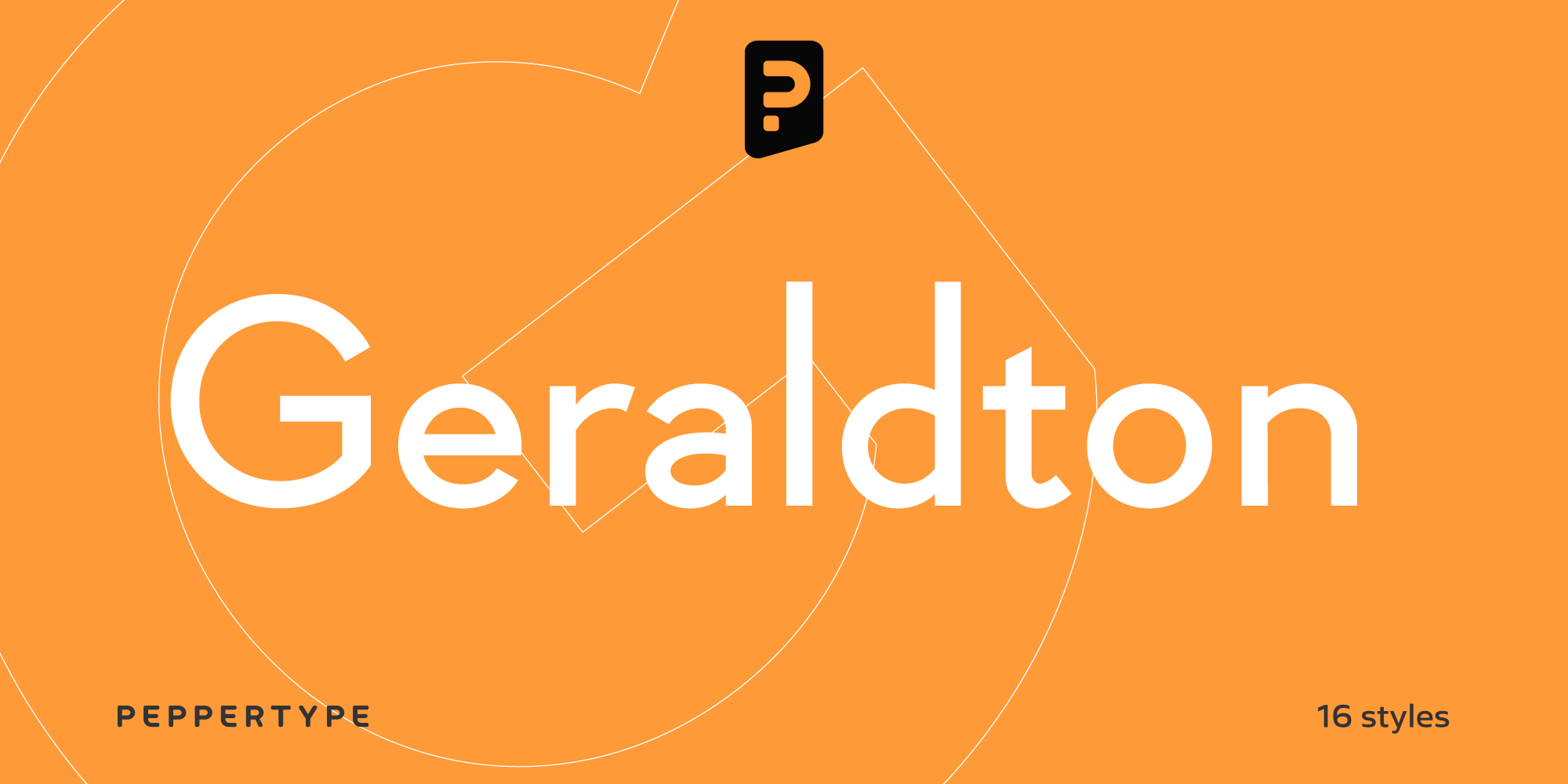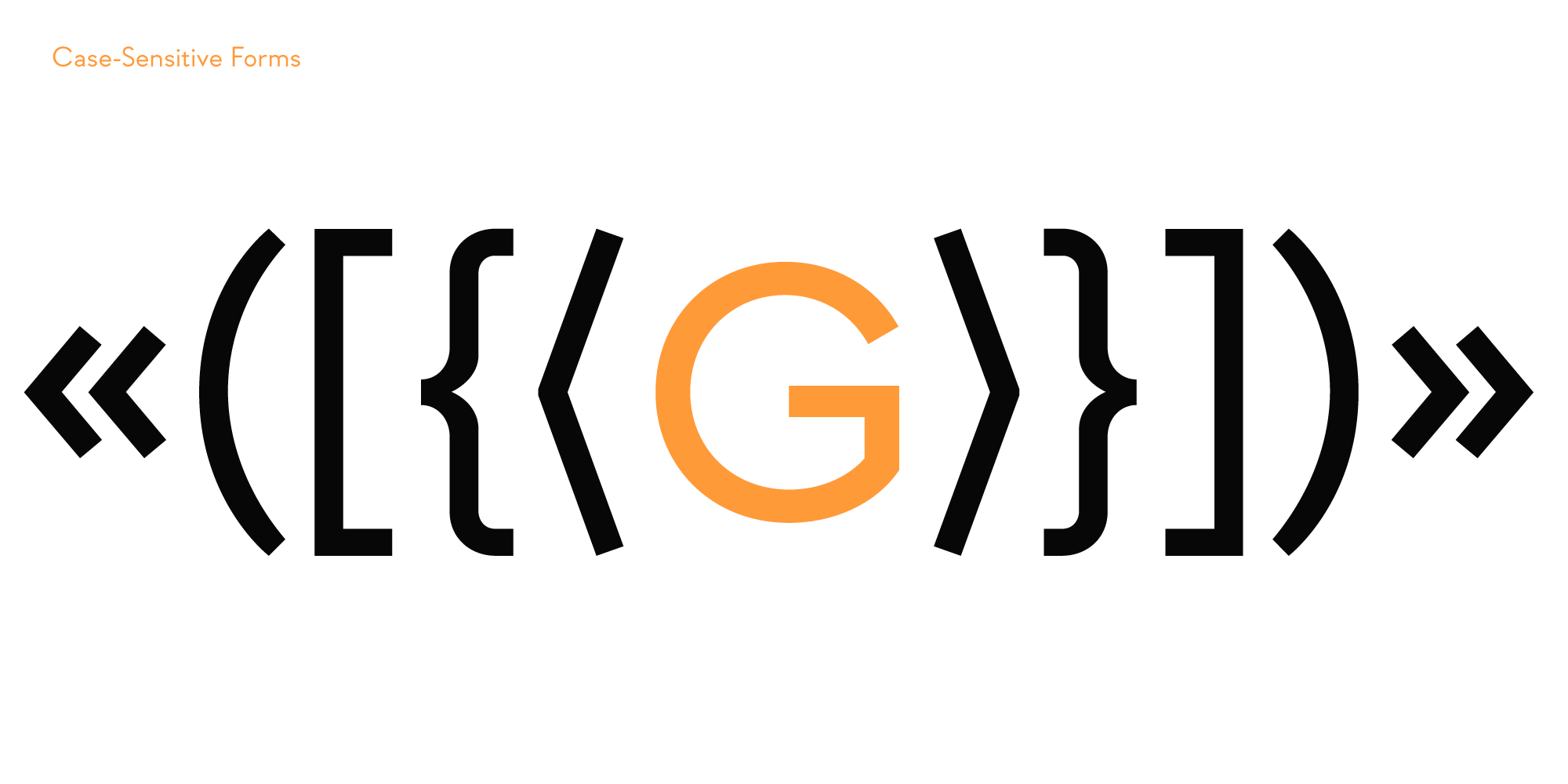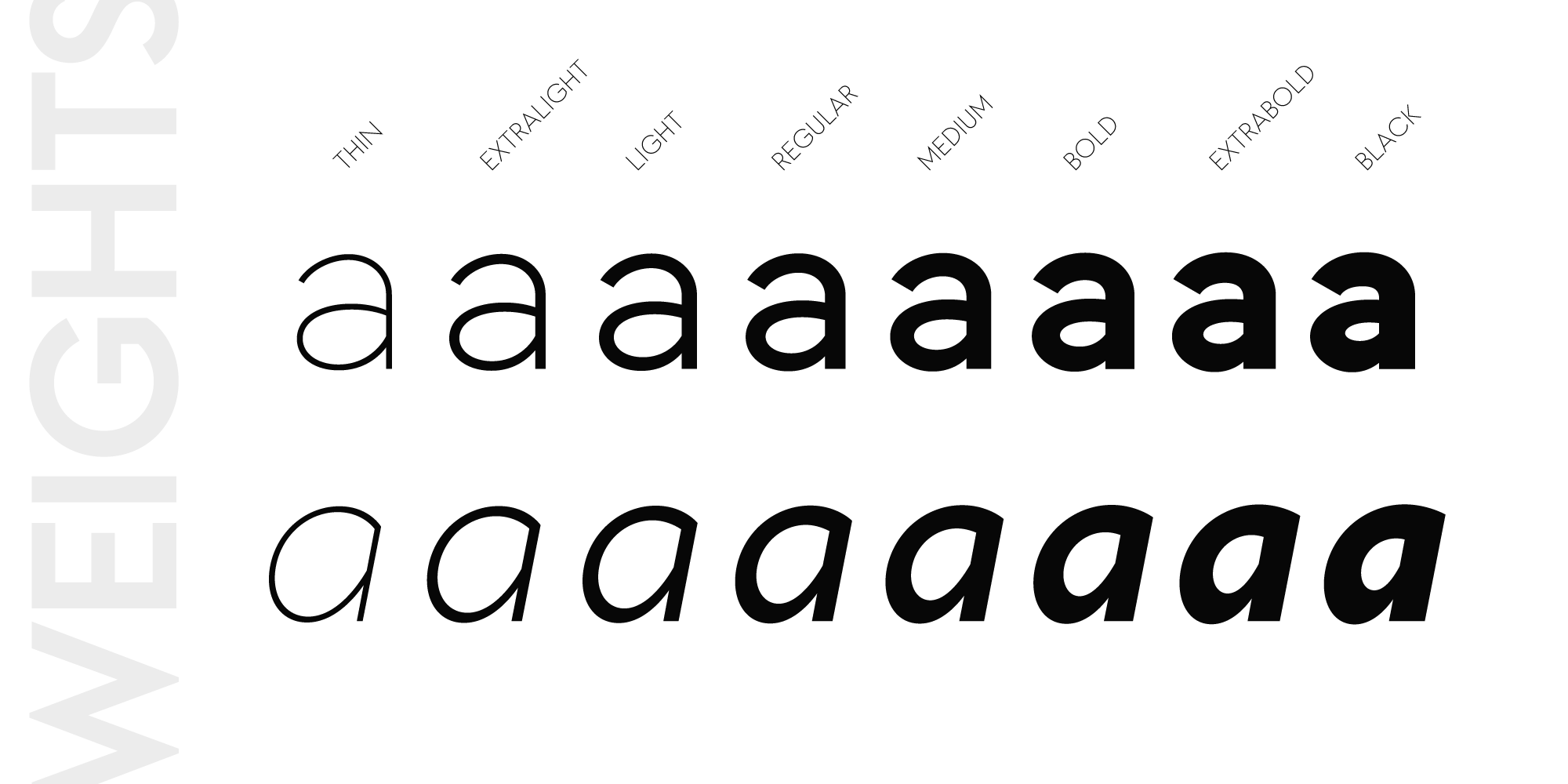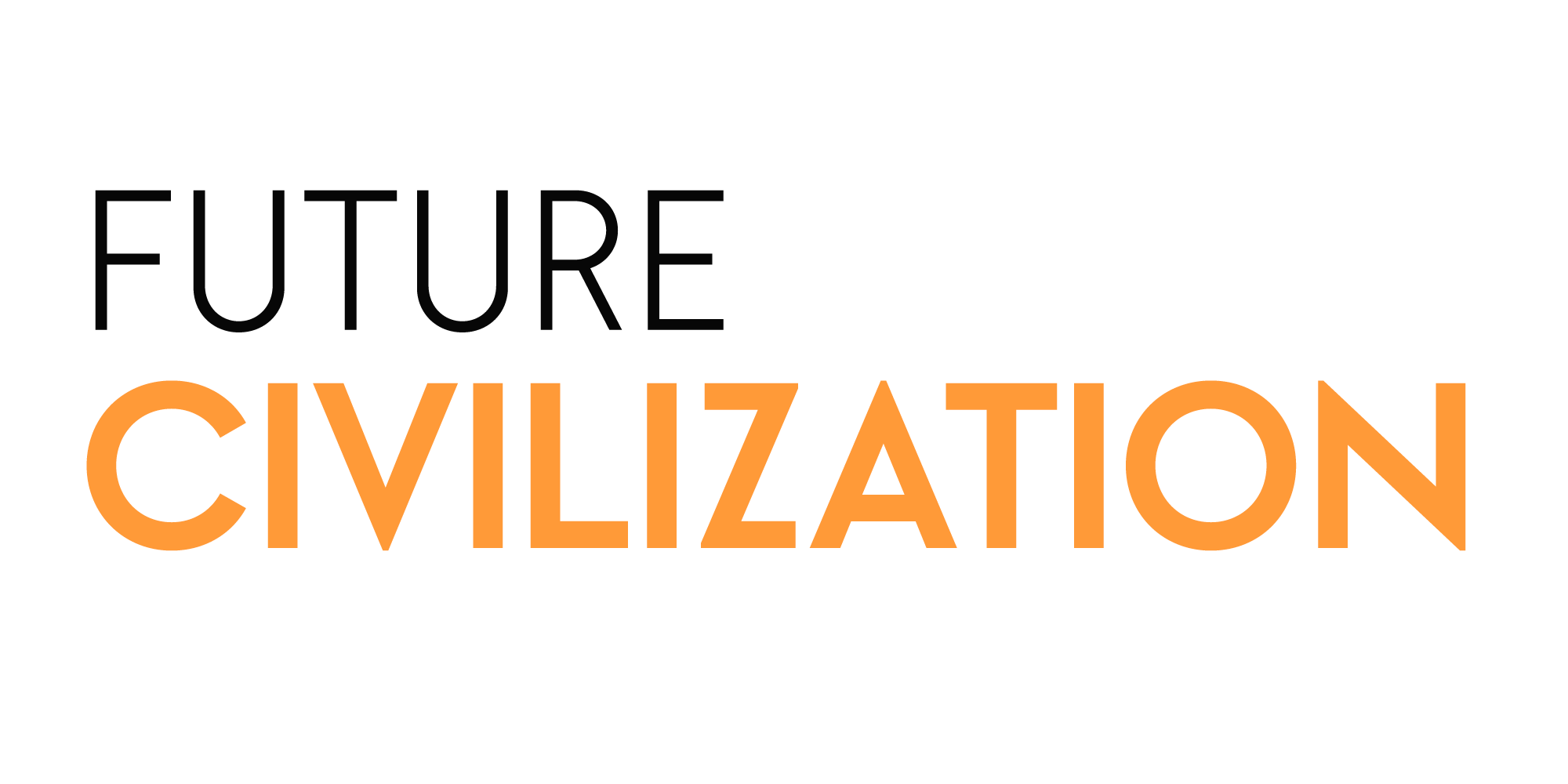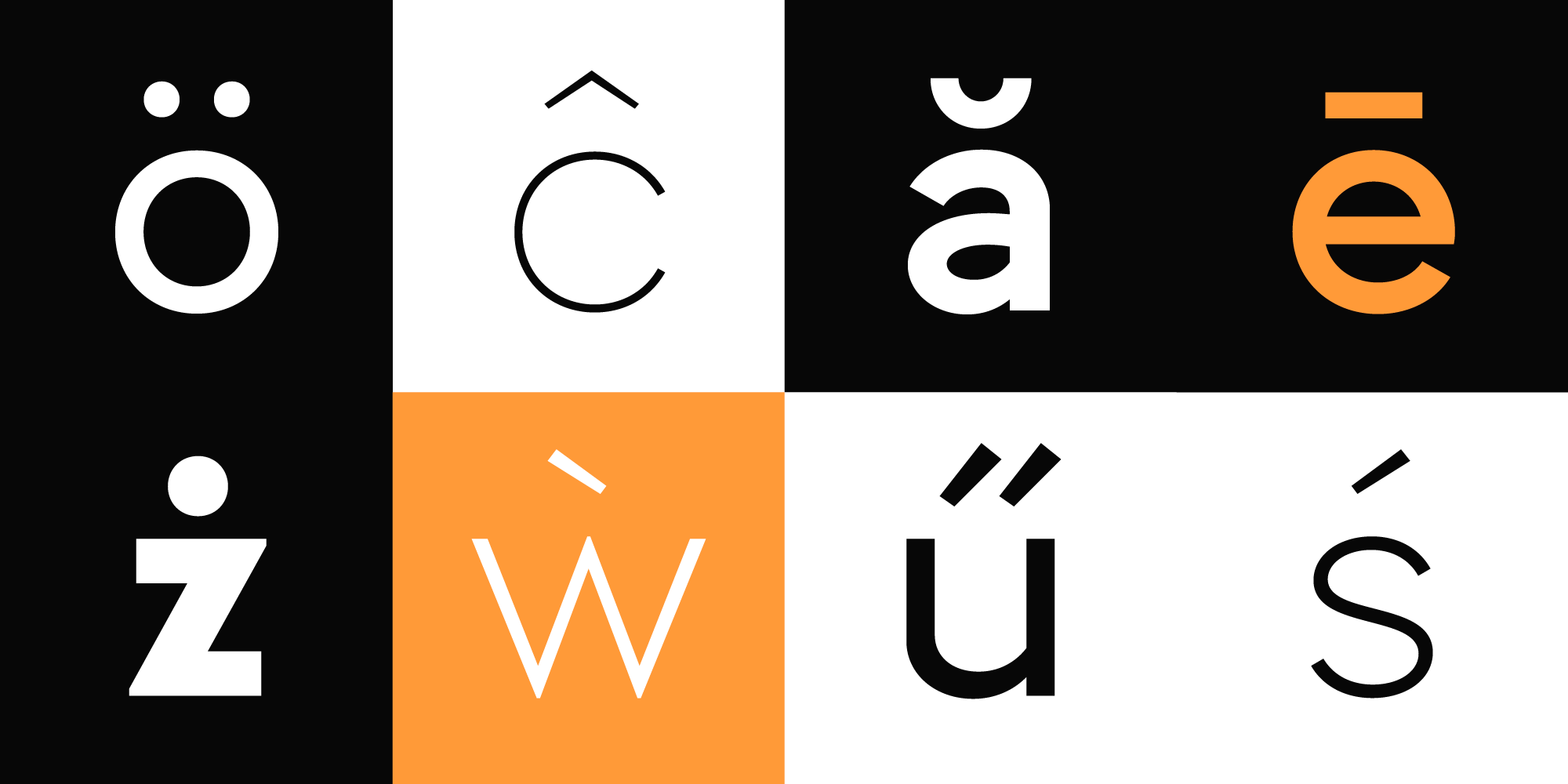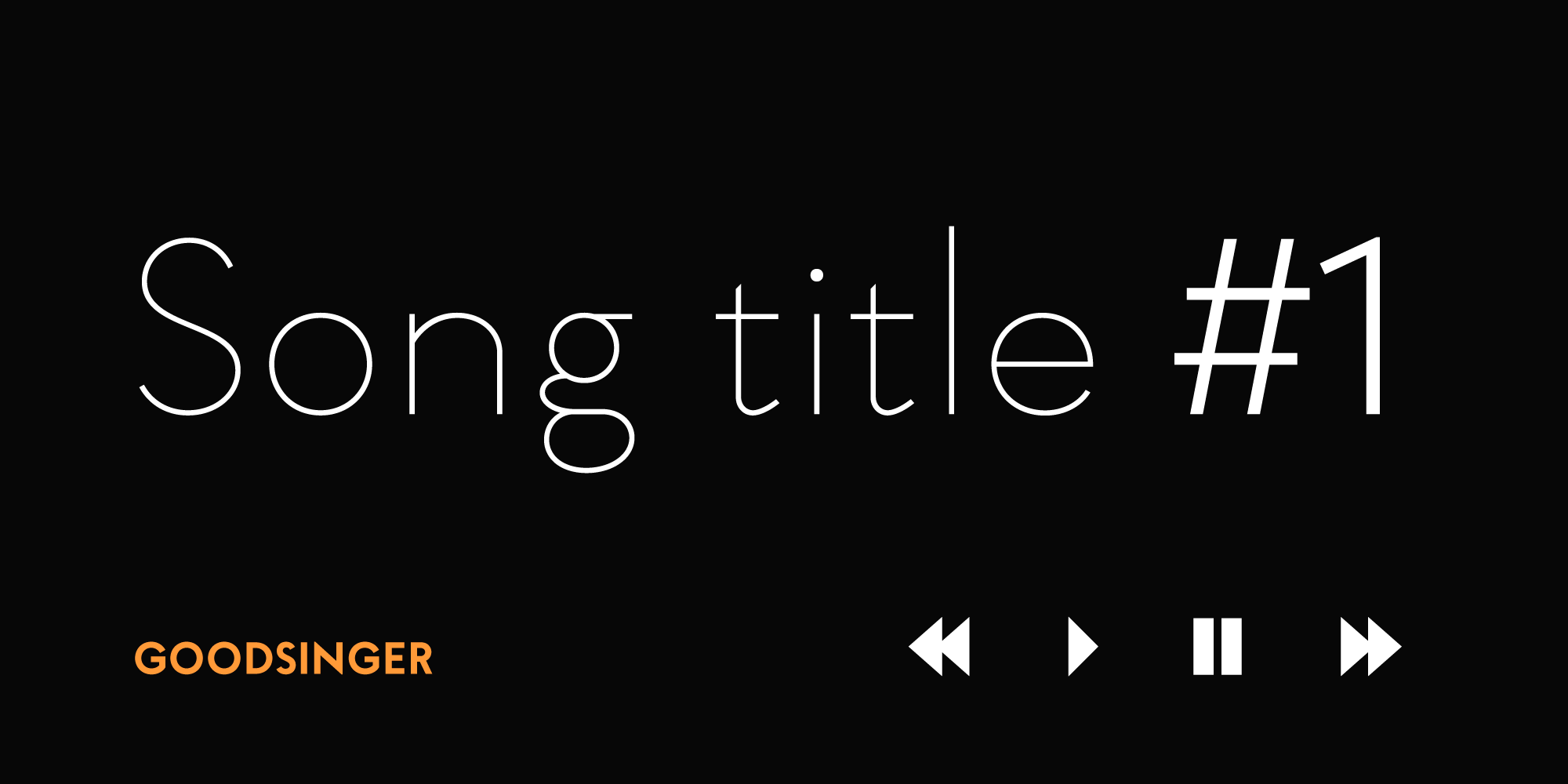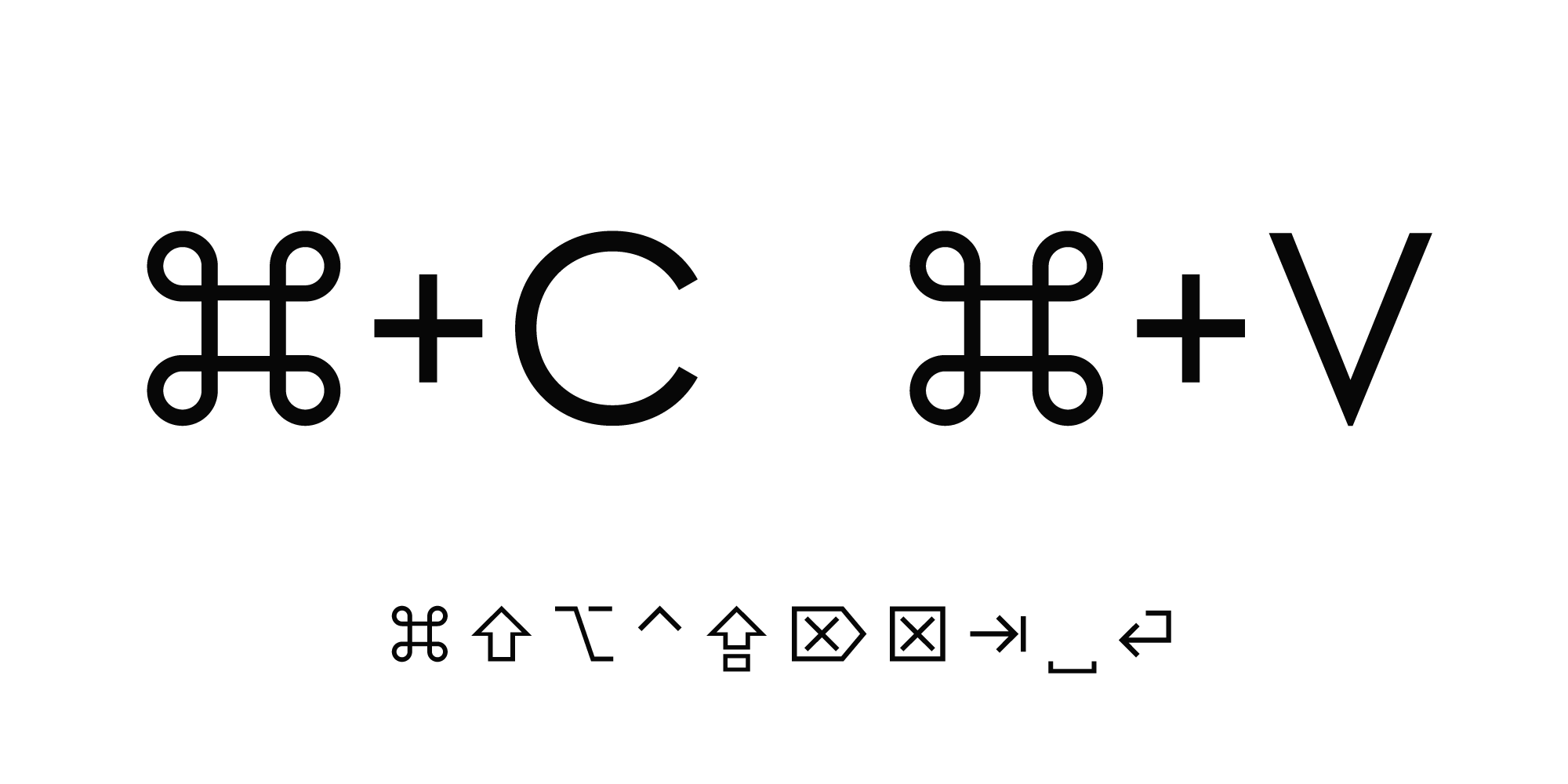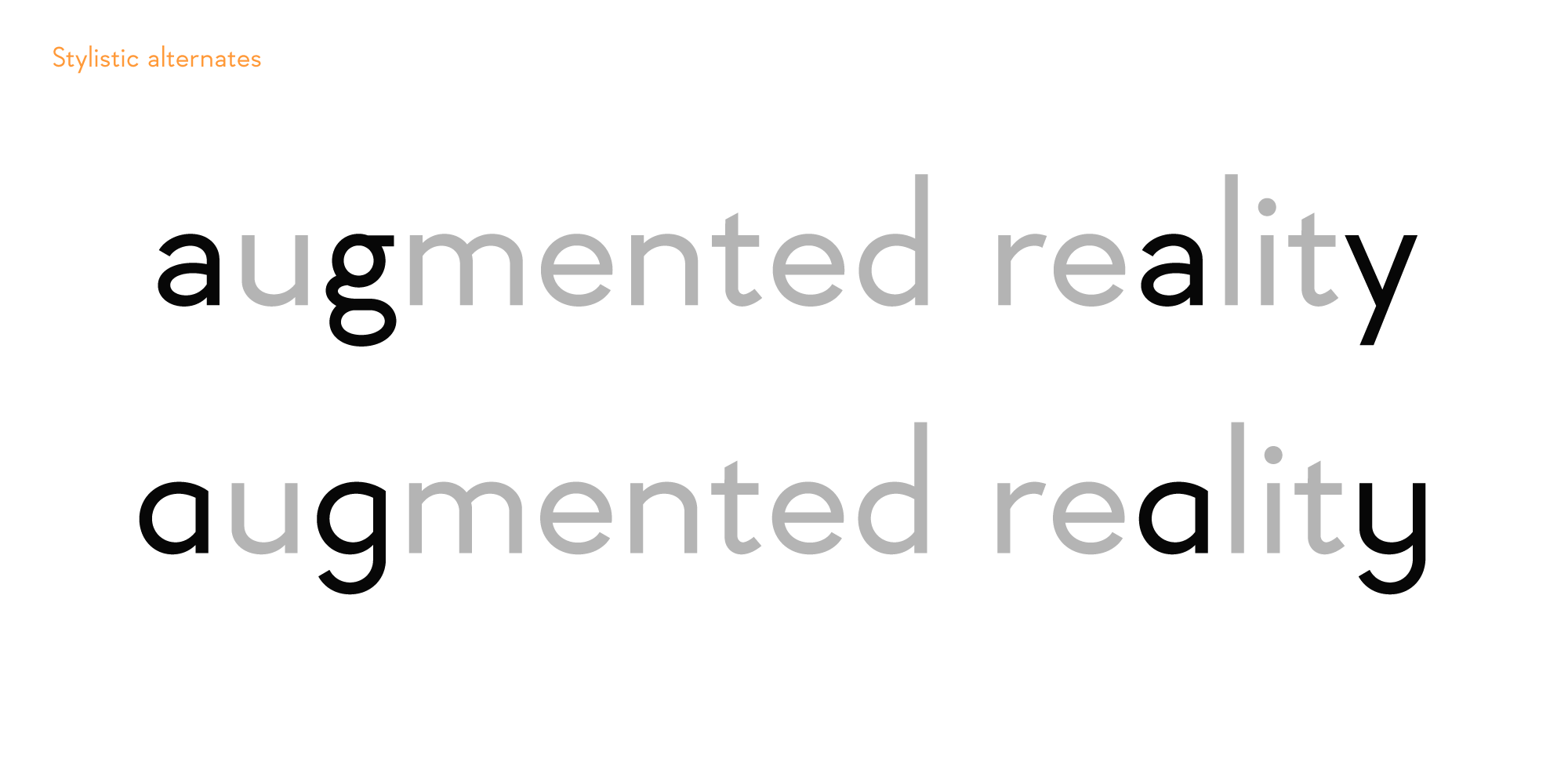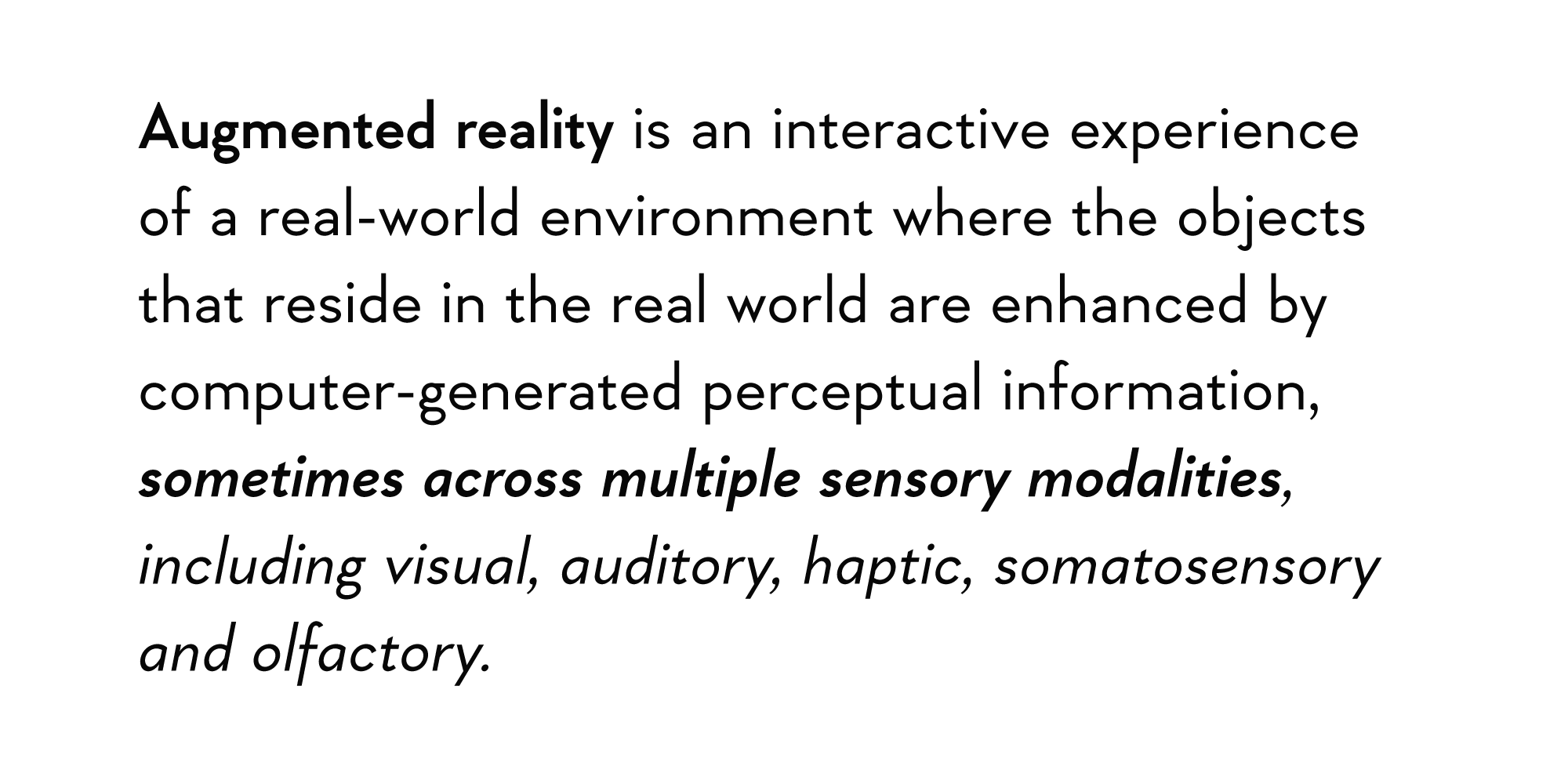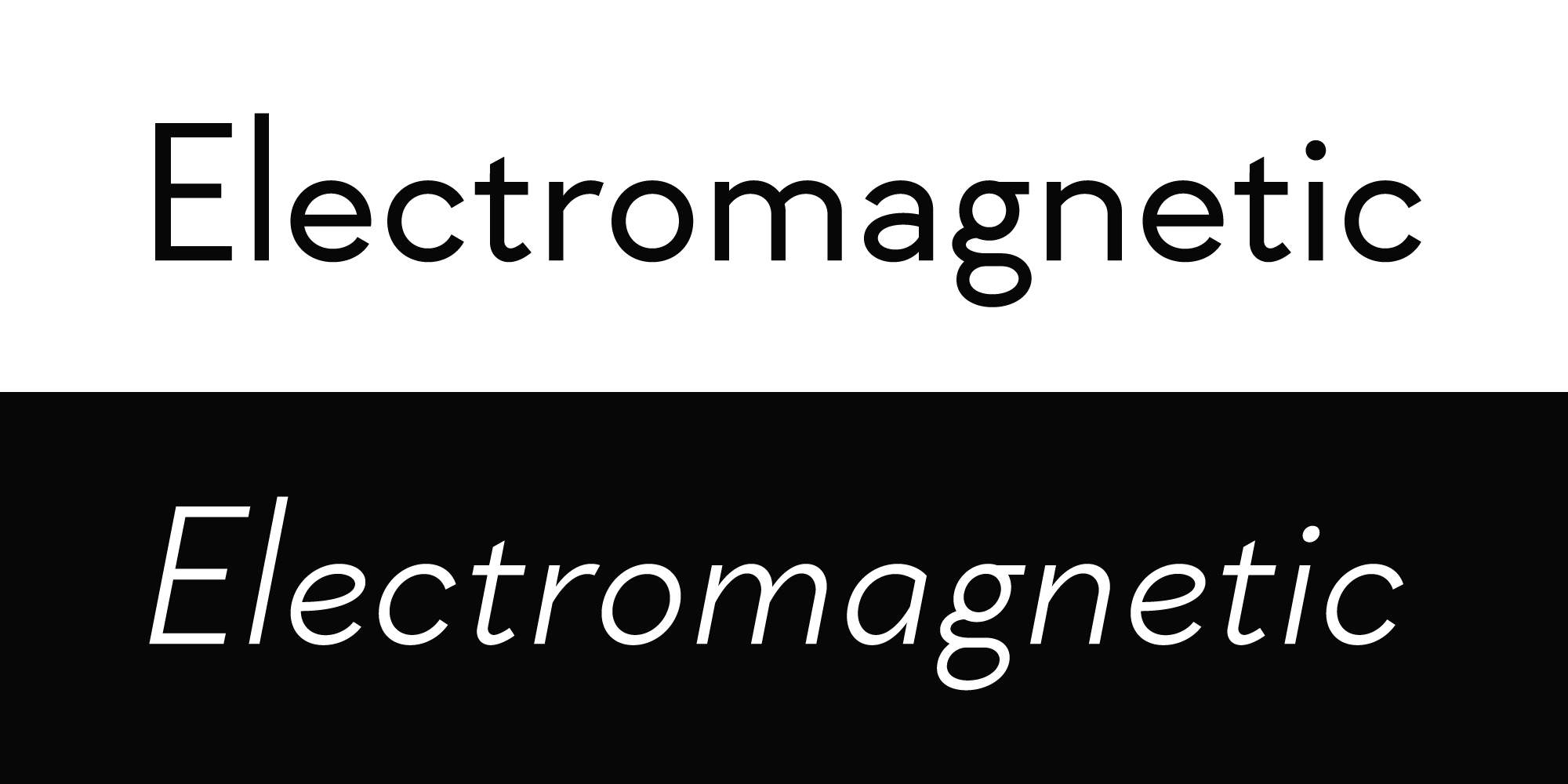
Geraldton
Geraldton is a warm and friendly geometric sans-serif typeface in 8 weights with matching italics. Its low x-height and sharp angles are inspired by geometric types of 1920s and 1930s completed with a slight modern humanist touch.
It features support for all European Latin-based languages as well as Cyrillic script. Apart from being equipped with numerous OpenType features, it also contains dozens of computer-related dingbats.
Designed by Oleh Lishchuk